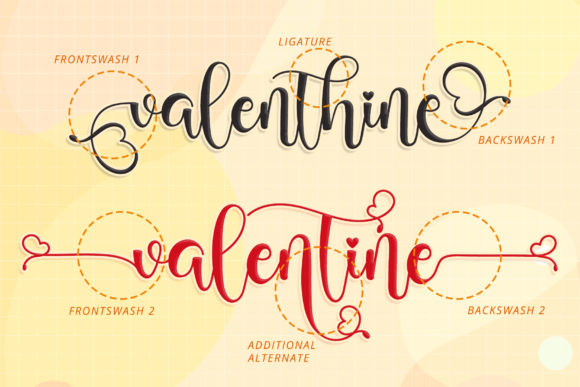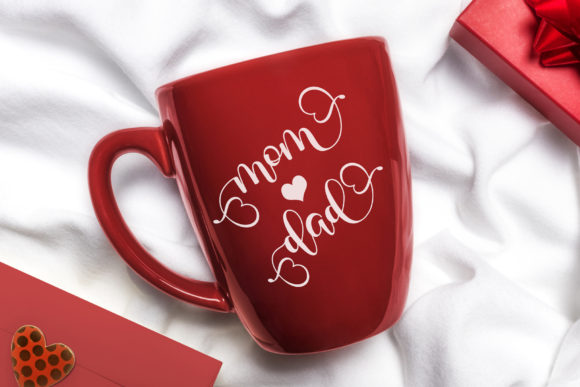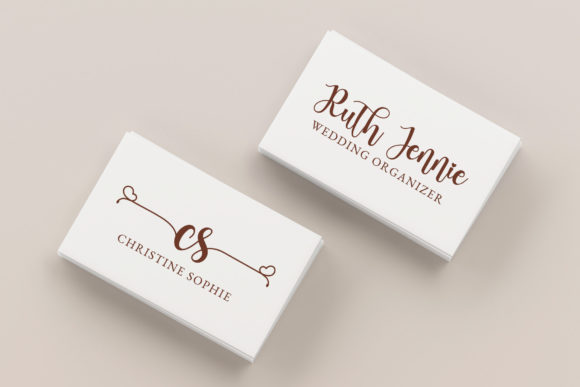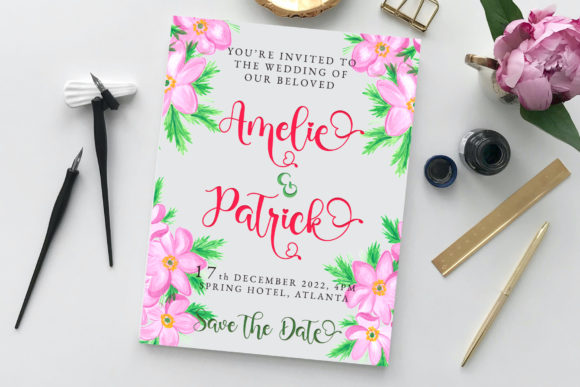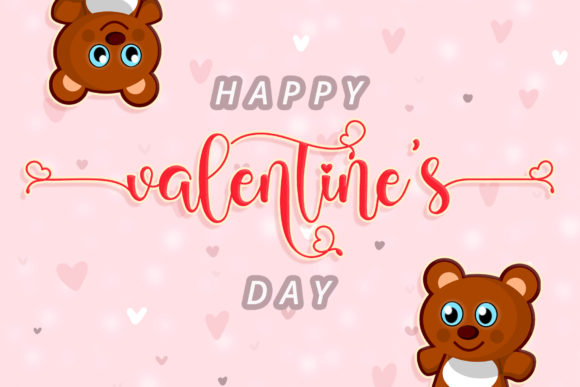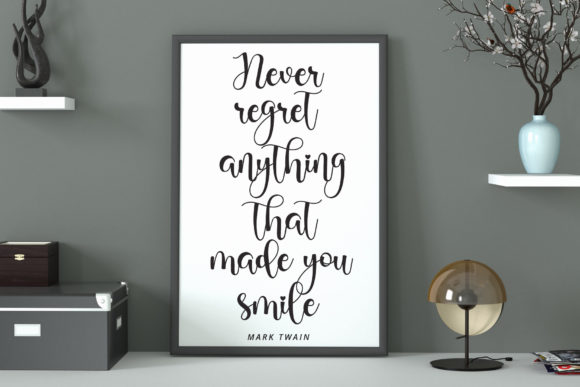
Introduction to Mister Valentine Font
As a designer, there’s nothing quite like the thrill of bringing a creative project to life. The blank canvas, the blank page, the endless possibilities – it’s a feeling that never gets old. And when you’re working on a project that’s all about love and romance, the right font can make all the difference. That’s where Mister Valentine Font comes in – a romantic, cute, and bouncy script font that’s perfect for adding a touch of whimsy to your design.
With its high-quality design and transparent background, Mister Valentine Font is a valuable resource for any designer looking to add some extra flair to their work. Whether you’re creating a wedding invitation, a greeting card, or a social media quote, this font is sure to bring a smile to your client’s face. And the best part? It’s free to download, making it an accessible and affordable addition to your design arsenal.
So why settle for a generic font when you can have a font that’s truly one-of-a-kind? With its PUA encoded glyphs and swashes, Mister Valentine Font is a game-changer for designers looking to add a little extra something to their work. In this article, we’ll take a closer look at what makes this font so special and how you can use it to take your designs to the next level.
Key Features of Mister Valentine Font
- Features a unique, elegant design with subtle nuances
Honest Review: Mister Valentine Font
As a designer, I’ve had my fair share of working with various fonts, but the Mister Valentine Font has caught my attention recently. This font is a fantastic addition to any design resource, offering a unique touch to creative projects.
What works well: ✨ The Mister Valentine Font boasts a beautiful, elegant script design that’s perfect for creating invitations, greeting cards, and other formal documents. The high-quality design ensures that the text is clear and readable, even at larger font sizes. The transparent background option also allows for seamless integration with other design elements.
What could be improved: ⚠️ While the font is excellent, I did encounter some issues with compatibility on certain platforms. It’s essential to test the font thoroughly before using it in a project. Additionally, the font family could benefit from more variations to cater to different design styles.
Overall, the Mister Valentine Font is a solid choice for designers looking to add a touch of elegance to their work. With its high-quality design and transparent background option, it’s a great resource for any creative project.
- Perfect for formal documents, invitations, and greeting cards
- High-quality design for clear and readable text
- Transparent background option for seamless integration
Tips for Getting the Most Out of Mister Valentine Font
To get the most out of the Mister Valentine Font, try using it in combination with other design elements, such as graphics and textures. Experiment with different font sizes and styles to create a unique look.
The Mister Valentine Font is perfect for:
- Event promotions and flyers
Alternatives to Mister Valentine Font
The Alex Brush Font is a high-quality, elegant script font that’s perfect for creative projects that require a touch of sophistication. It’s ideal for use in logos, wedding invitations, and other design elements that need a personal touch. When to use: For projects that require a classic, timeless feel. How it compares to Mister Valentine Font: While Mister Valentine Font has a more vintage feel, Alex Brush Font is more elegant and refined.
The Great Vibes Font is a stylish, modern script font that’s great for use in creative projects that need a fun, energetic vibe. It’s perfect for posters, social media graphics, and other design elements that require a bold statement. When to use: For projects that require a modern, trendy feel. How it compares to Mister Valentine Font: Great Vibes Font is more playful and energetic than Mister Valentine Font, making it perfect for younger audiences.